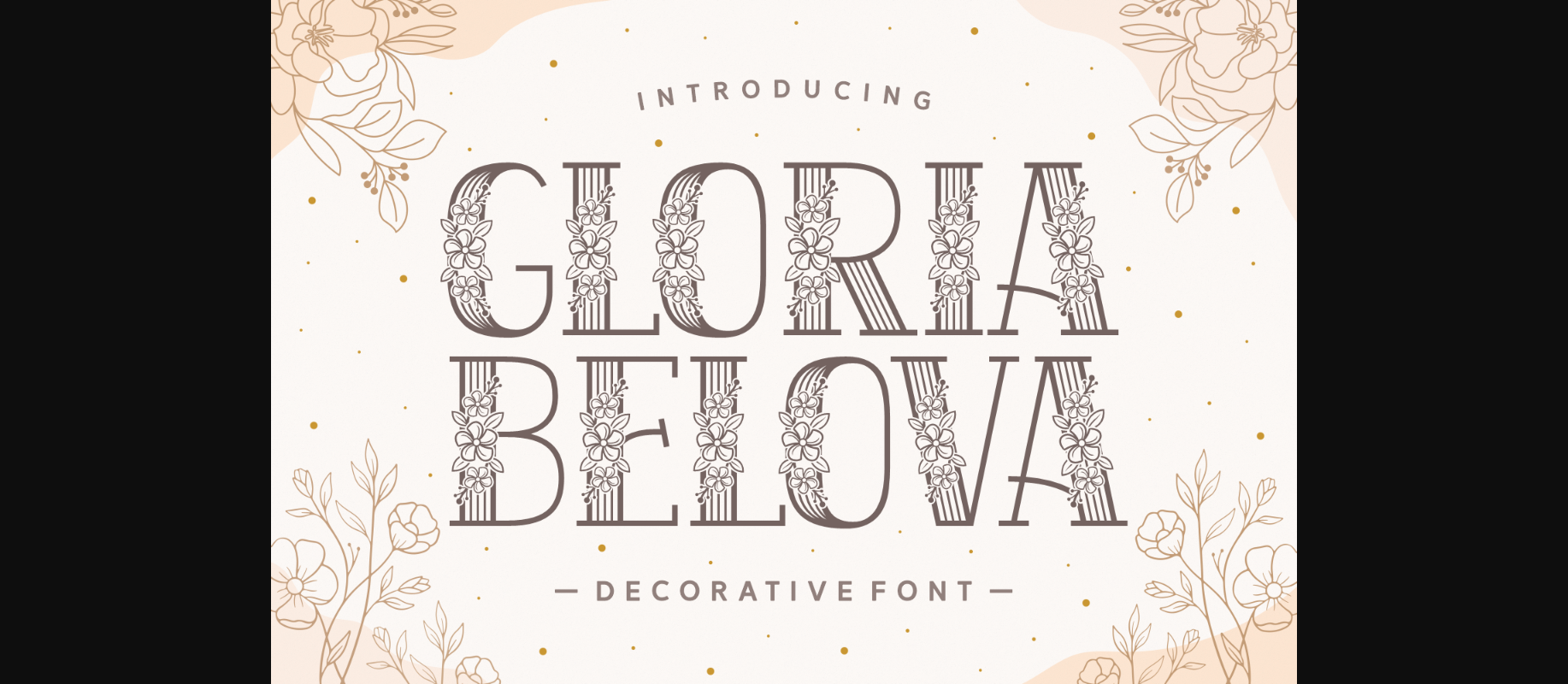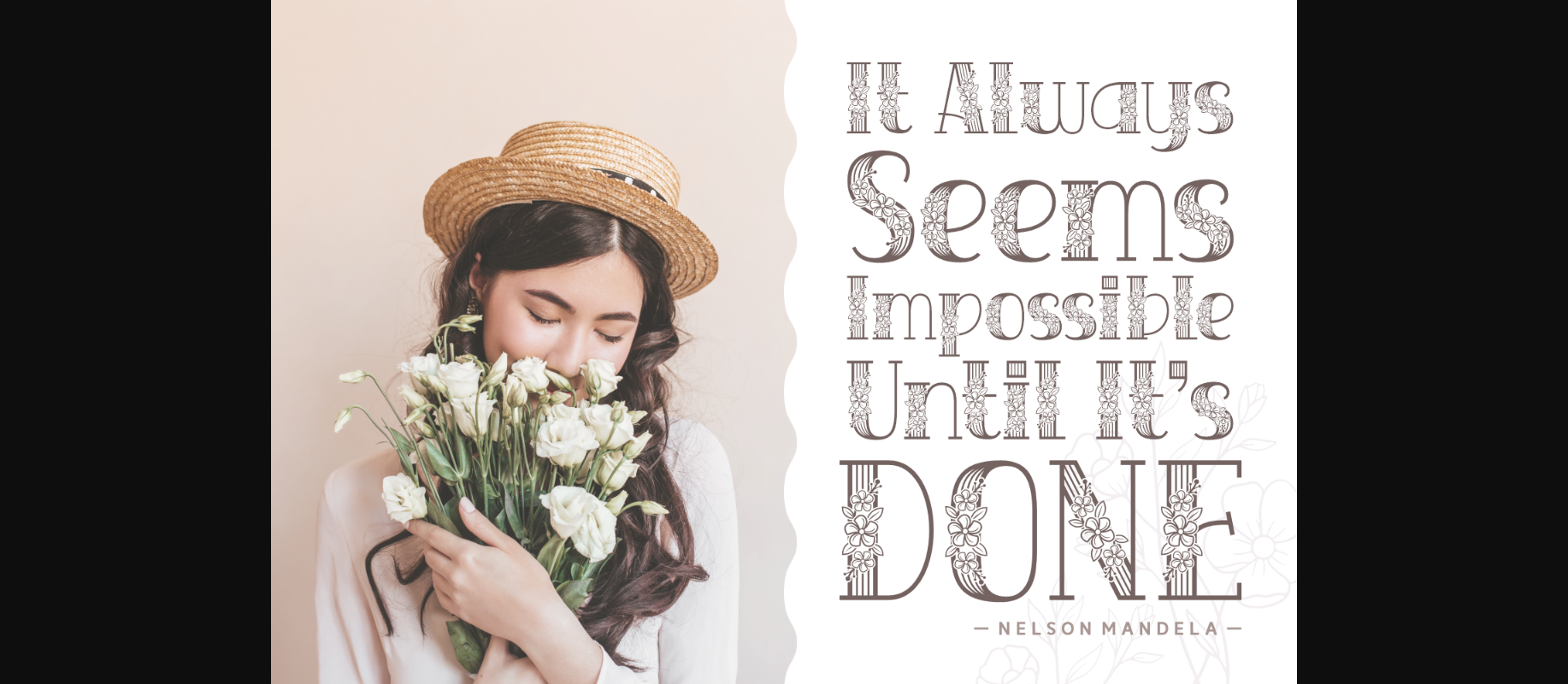
About Gloria Belova Font
Gloria Belova is a floral decorative font that exudes feminine beauty and grace. Delicate flowers and leaves adorn the letters, creating a sense of whimsy and romance. The flourishes and serifs add a touch of elegance and sophistication, while the bold strokes give it a strong presence. Perfect for wedding invitations, greeting cards, and any project that needs a touch of floral charm.